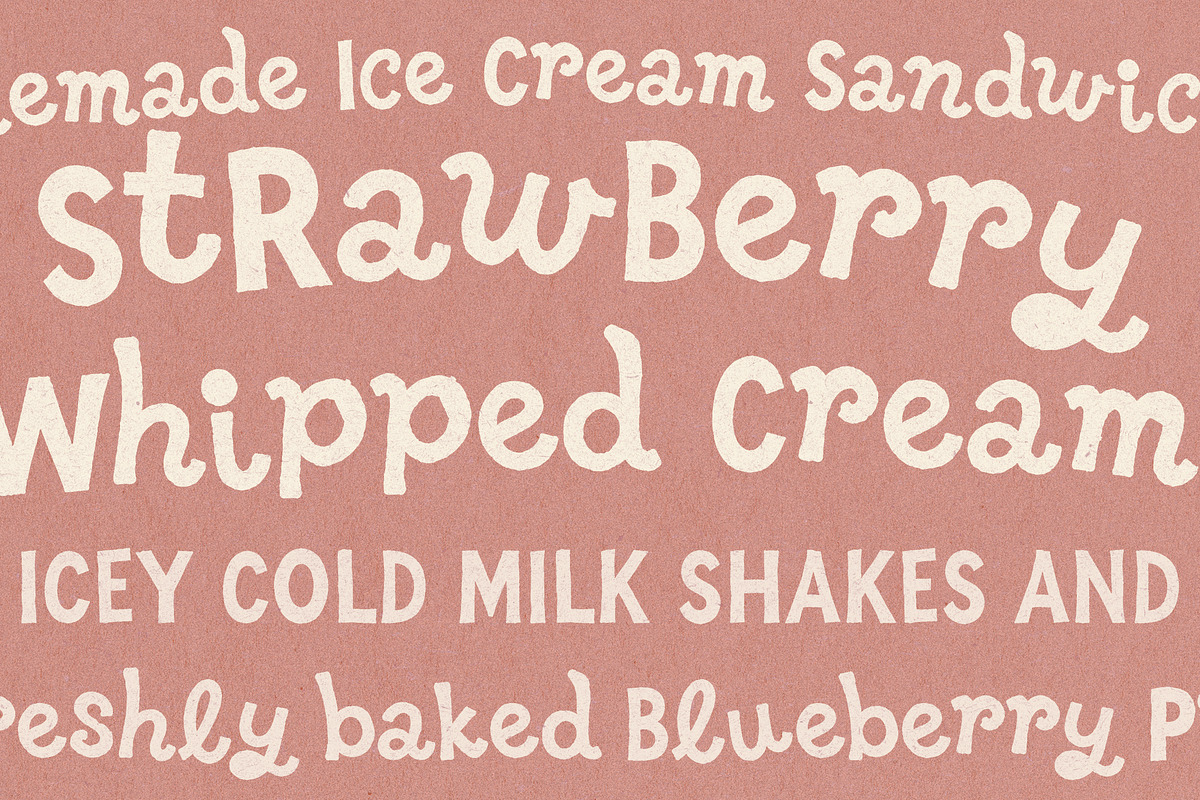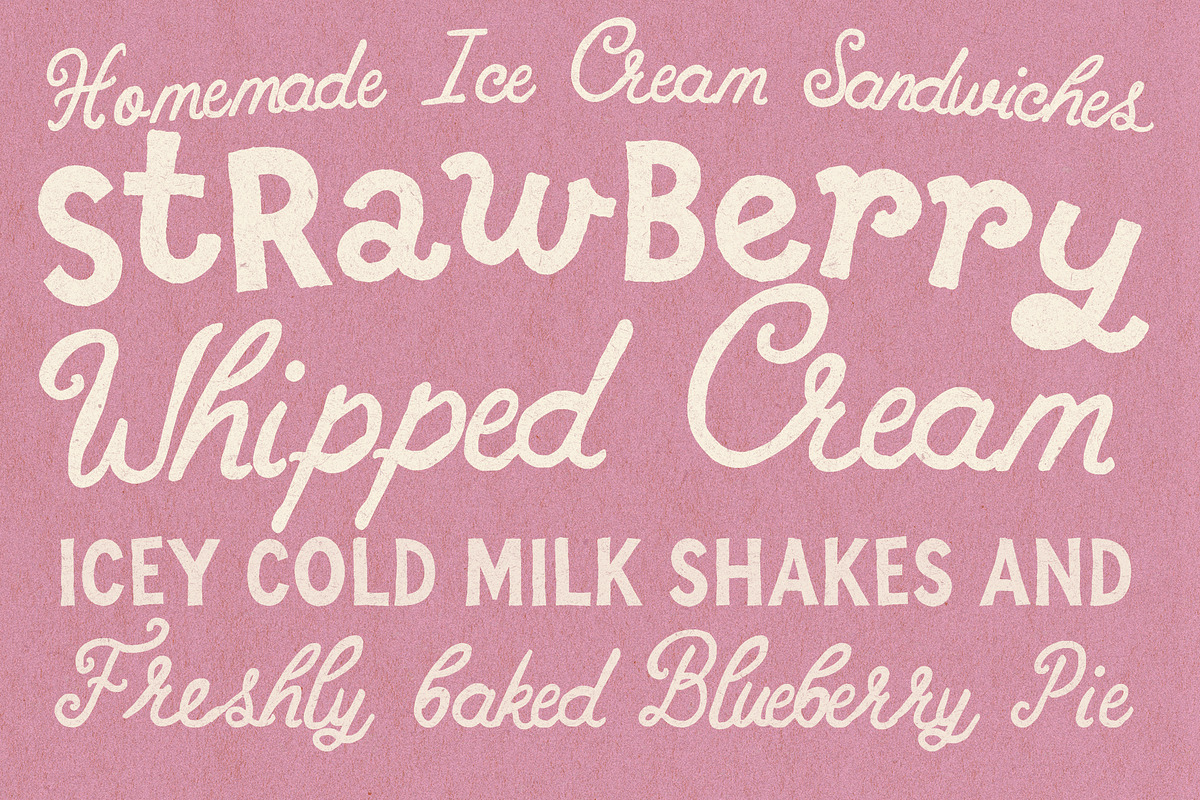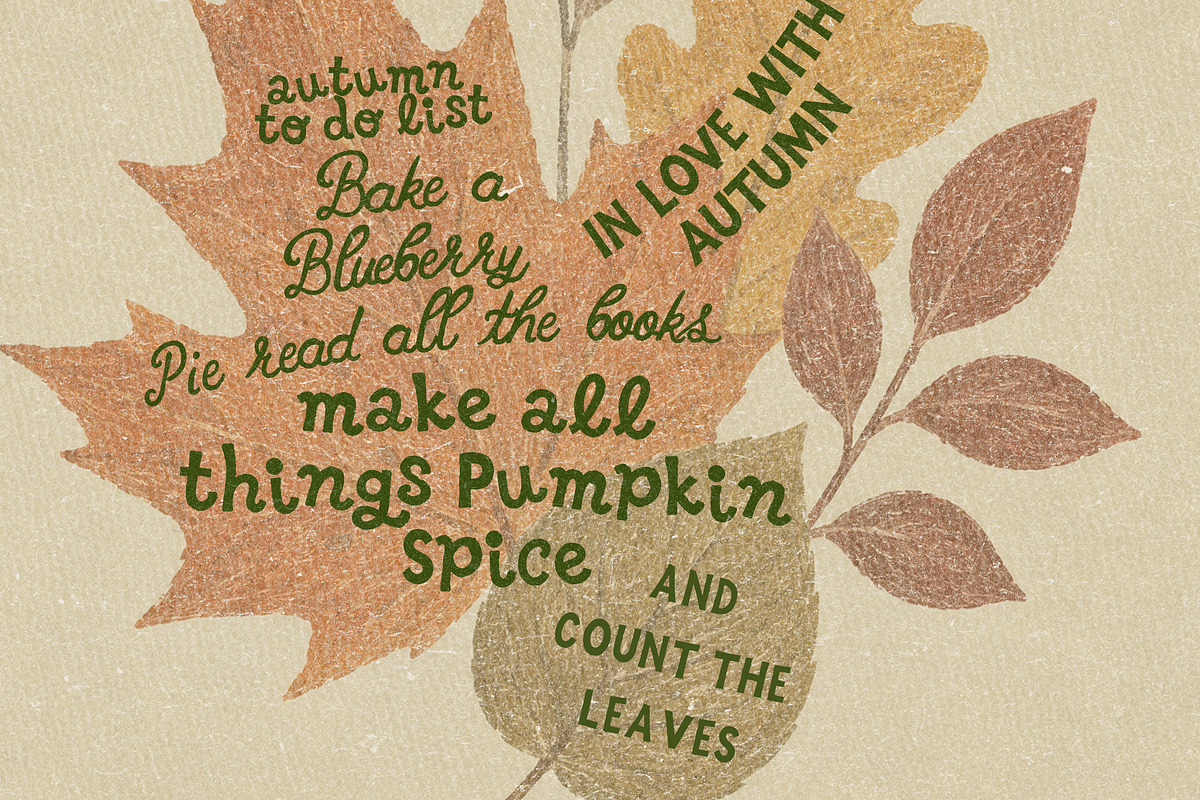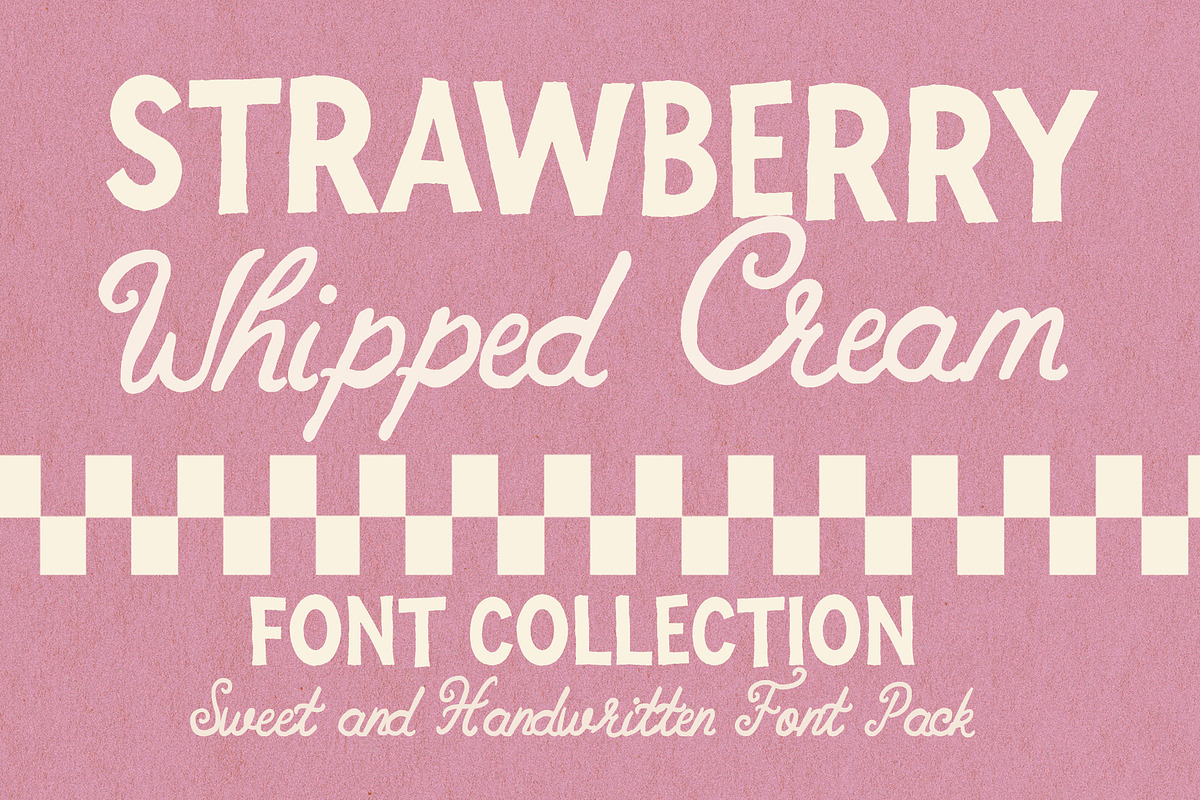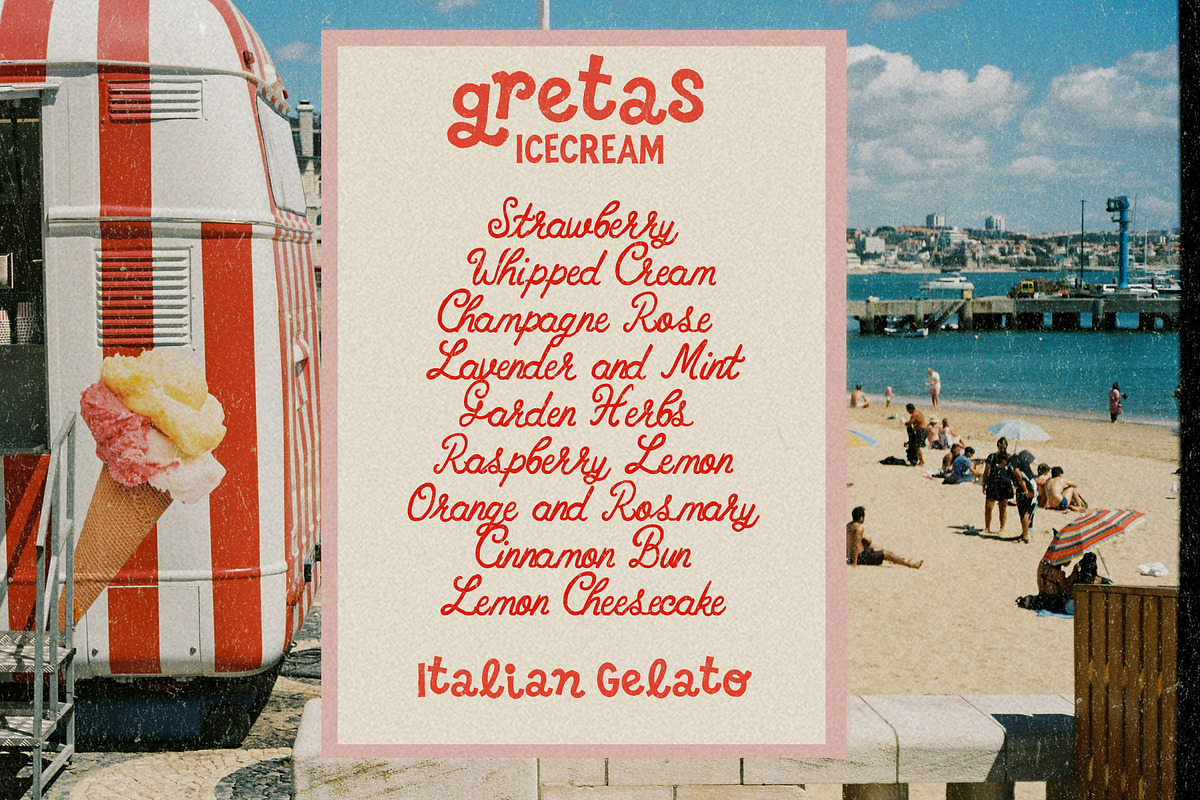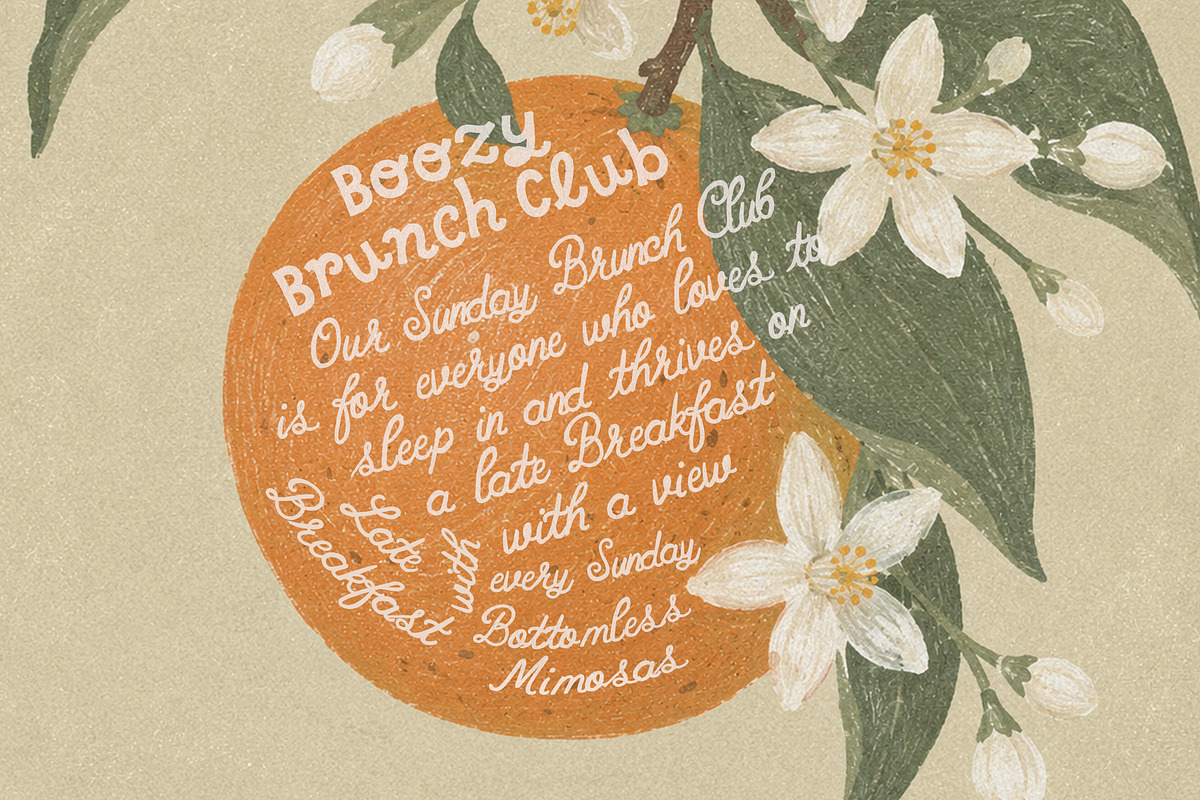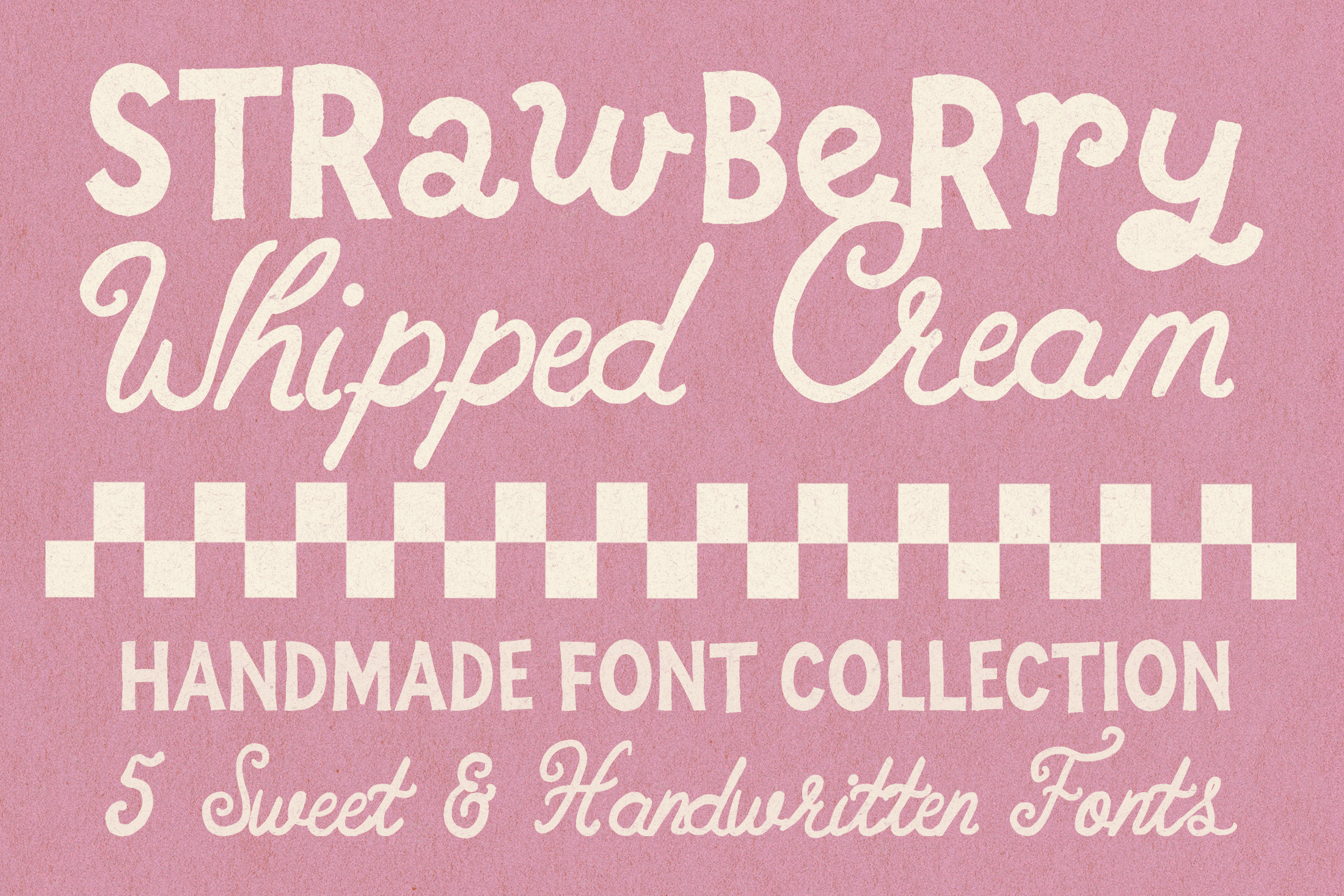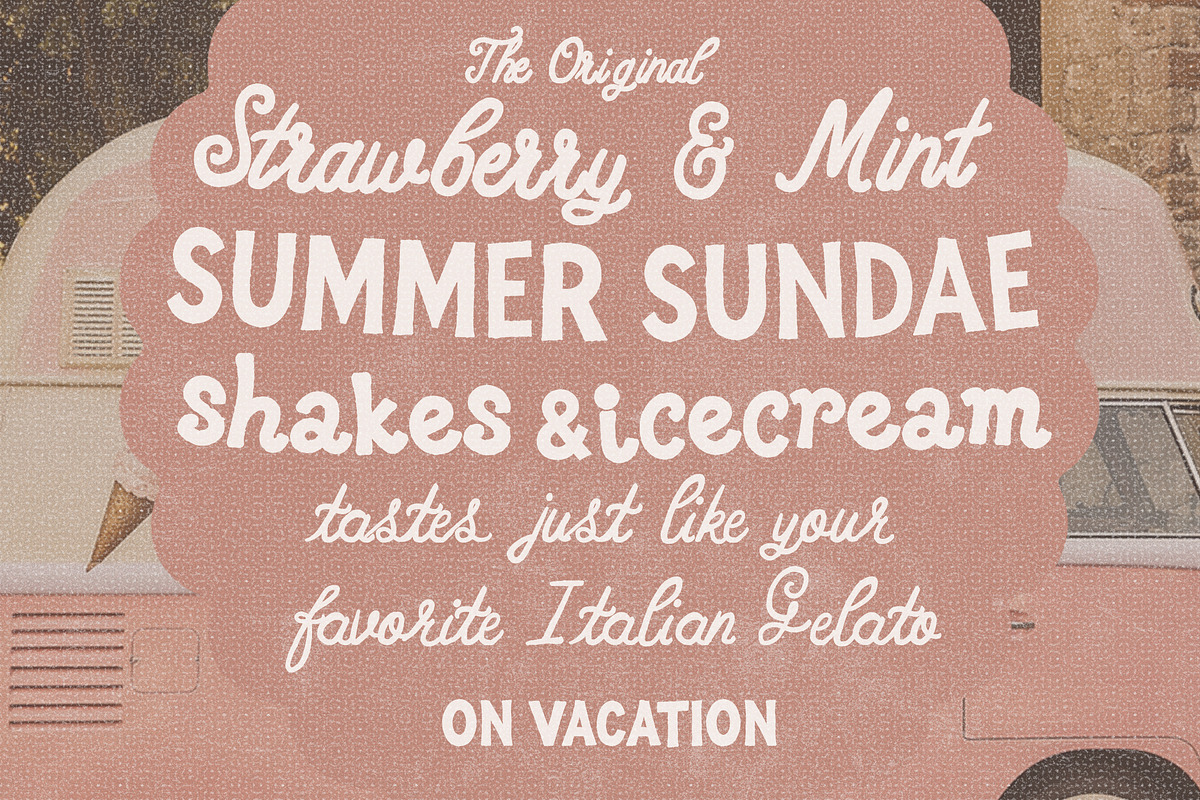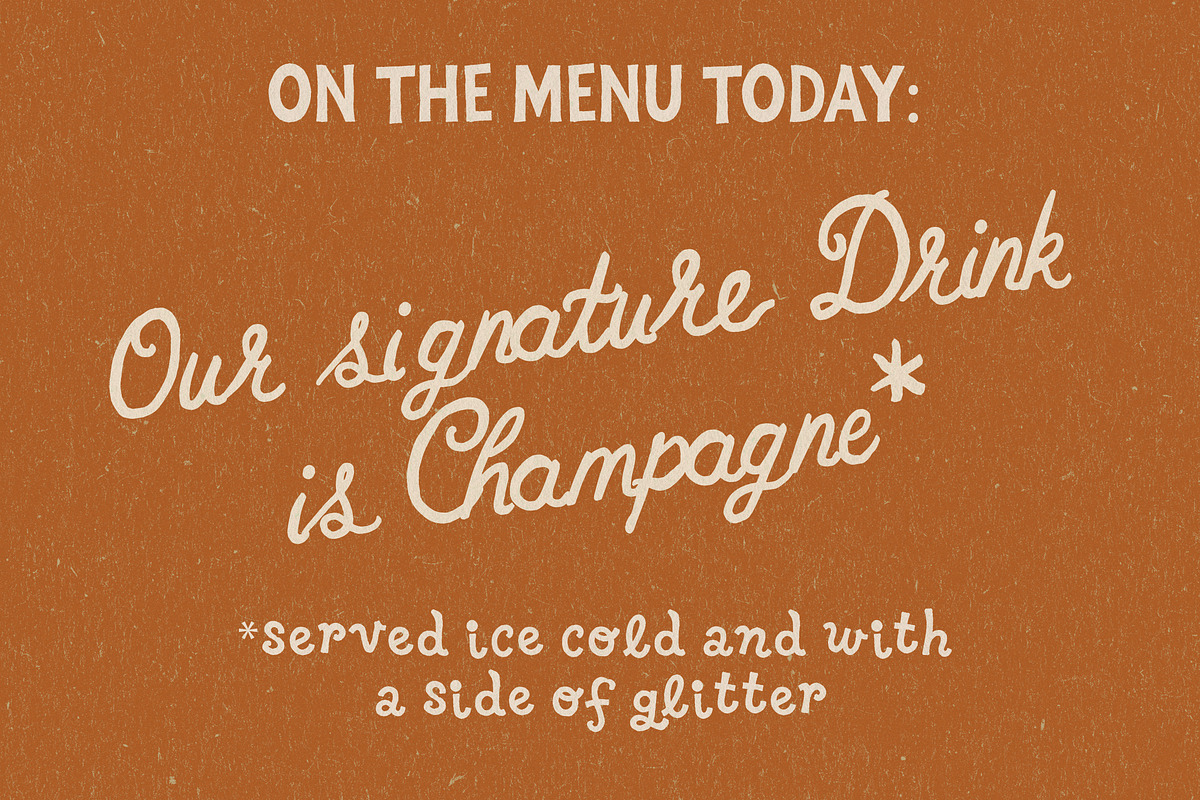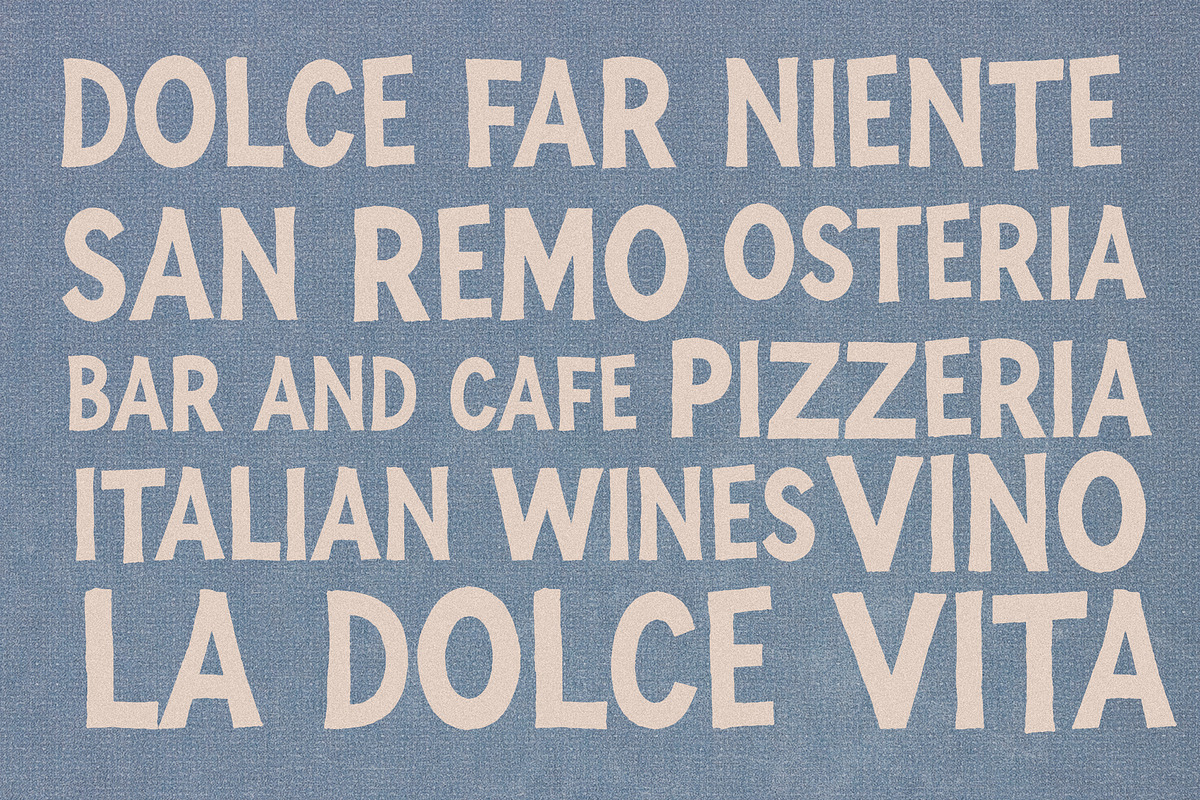
Whimsy Handwritten Sign Painter Font
Add a little sweetness to your next project with Strawberry Whipped Cream, a playful handwritten font duo that combines charming script lettering with a quirky handmade sans serif. While the script is sweet with a hint of whimsy, the sans comes with quirky lettershapes and a playful and fun look and feel.
Whether you're creating playful logos, product packaging, café branding, social media graphics or eye-catching headlines, Strawberry Whipped Cream helps your designs feel warm, authentic and instantly memorable.
Perfect for bakery branding, cafés, dessert packaging, candle labels, children's brands, beauty products, handmade businesses, wedding stationery, greeting cards, stickers, apparel, tote bags, posters, Pinterest graphics, Instagram content, packaging design and creative marketing materials, this versatile font collection gives you endless pairing possibilities for projects that deserve a little extra charm.